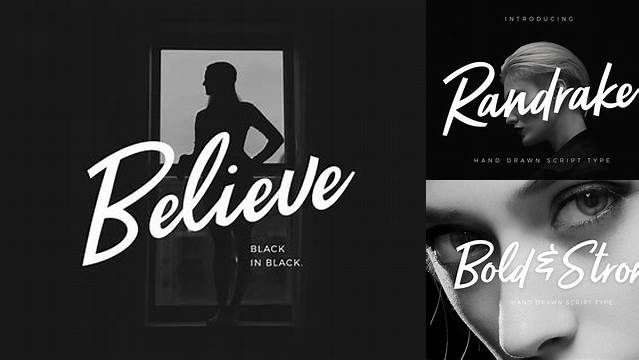
Are you looking for the perfect font to add a touch of elegance and personality to your designs? Look no further! In this comprehensive guide, we'll delve into the world of the Randrake font script, offering you everything you need to know about this beautiful typeface and how you can download it for free. We'll explore its unique characteristics, discuss its best uses, and provide tips on how to incorporate it into your projects seamlessly. So, buckle up, guys, and let's dive into the world of Randrake!
What is the Randrake Font Script?
Let's start by understanding what exactly the Randrake font script is. This font is a beautifully crafted typeface that falls into the script category. Script fonts are designed to mimic the flowing strokes of handwriting, giving them a personal and elegant touch. Randrake is no exception; it boasts graceful curves, delicate lines, and a distinct personality that makes it stand out from the crowd. Its flowing letterforms and unique flourishes give it a handmade feel, perfect for adding a touch of sophistication to various design projects. The Randrake font script exudes a sense of elegance and charm, making it ideal for projects that require a touch of personality and sophistication. Its versatility allows it to be used in a wide range of applications, from branding to invitations, ensuring that your message is conveyed with style and grace. The unique characteristics of the Randrake font script make it a valuable asset for any designer looking to add a touch of artistry to their work. When you are deciding about using a particular font like Randrake, you should consider the tone and message you want to convey. Is it for a formal event, a personal project, or a business venture? The flowing script of Randrake lends itself well to projects where elegance and a personal touch are desired. For instance, wedding invitations, greeting cards, and personalized stationery would greatly benefit from the unique characteristics of this font. It can also add a touch of sophistication to logos, websites, and marketing materials. The key is to ensure that the font complements the overall design and message, creating a harmonious and visually appealing result. Moreover, think about legibility. While script fonts are beautiful, they can sometimes be challenging to read if used in large blocks of text or at small sizes. Therefore, it's advisable to use Randrake sparingly, opting for headings, titles, or short phrases where its elegance can shine without compromising readability. Combining it with a simpler sans-serif or serif font for body text can create a balanced and visually pleasing effect. The Randrake font script is more than just a typeface; it's a design element that can transform your projects. Its unique characteristics and versatility make it a valuable asset for designers and creatives alike. By understanding its strengths and limitations, you can effectively incorporate it into your work and elevate your designs to new heights.
Now, let's dive deeper into the specific features and characteristics that make the Randrake font script so special. One of the most notable features is its flowing and elegant letterforms. The strokes are smooth and graceful, creating a sense of movement and sophistication. This makes it perfect for projects that require a touch of class and refinement. The letterforms of Randrake are designed with a high level of detail, ensuring that each character complements the others seamlessly. The curves are carefully crafted, and the connections between letters are smooth and natural, giving the font a harmonious and organic feel. This attention to detail is what sets Randrake apart and makes it a truly special typeface. Another key characteristic of Randrake is its unique flourishes. These decorative elements add a touch of personality and flair to the font, making it stand out from other script typefaces. The flourishes are subtle yet effective, enhancing the overall elegance of the font without being overly distracting. They add a touch of whimsy and charm, making Randrake perfect for projects that require a personal and creative touch. Furthermore, the Randrake font script often includes a variety of alternate characters and ligatures. Alternate characters provide different stylistic options for certain letters, allowing you to customize the font to your specific needs. Ligatures, on the other hand, are special characters that combine two or more letters into a single glyph, creating a more fluid and natural connection. These features add versatility to the font, allowing you to create unique and customized designs. The weight and thickness of the strokes in Randrake also contribute to its overall aesthetic. The font typically features a balanced stroke weight, making it legible and visually appealing. The strokes are neither too thin nor too thick, ensuring that the font is easy to read while still maintaining its elegant appearance. This balance makes Randrake suitable for a variety of applications, from digital designs to print materials. Finally, the overall spacing and kerning of the Randrake font script are carefully considered to ensure optimal readability and visual appeal. Kerning refers to the spacing between individual letters, and proper kerning is essential for creating a balanced and harmonious typeface. Randrake's kerning is meticulously adjusted to ensure that the letters flow together seamlessly, creating a visually pleasing and easy-to-read text. In conclusion, the key features and characteristics of the Randrake font script, including its flowing letterforms, unique flourishes, alternate characters, ligatures, balanced stroke weight, and careful kerning, make it a truly special and versatile typeface. Understanding these features will help you effectively incorporate Randrake into your designs and create stunning visuals.
Best Uses for the Randrake Font Script
So, where can you best utilize the Randrake font script? Its elegant and flowing style makes it ideal for a variety of projects. Think about wedding invitations, greeting cards, and other stationery items. The script adds a touch of romance and sophistication, making it perfect for special occasions. Randrake's graceful letterforms and delicate flourishes can transform a simple invitation into a work of art, setting the tone for a memorable event. The font's elegant appearance makes it a natural fit for any design that requires a touch of sophistication and charm. Beyond stationery, Randrake is also an excellent choice for branding projects. Its unique personality can help your brand stand out from the crowd. Imagine using it for your logo, website, or marketing materials. The font's distinctive style can create a memorable impression, helping to build brand recognition and loyalty. The Randrake font script can convey a sense of luxury and exclusivity, making it particularly suitable for brands in the fashion, beauty, or lifestyle industries. In the world of web design, Randrake can be used to add a touch of elegance to headers, titles, and short blocks of text. However, it's important to use it sparingly, as script fonts can be challenging to read in large blocks of text. Combining Randrake with a simpler sans-serif or serif font for body text can create a balanced and visually appealing design. The font's flowing lines and unique flourishes can add a touch of personality to your website, making it more engaging and memorable for visitors. Furthermore, Randrake can be a great choice for creating personalized gifts and crafts. Think about using it for monograms, quotes, or custom messages on mugs, t-shirts, or other items. The font's elegant style can add a special touch to these items, making them perfect for birthdays, anniversaries, or other occasions. The Randrake font script allows you to express your creativity and personalize your gifts in a unique and meaningful way. In the realm of publishing, Randrake can be used for book covers, titles, and chapter headings. Its elegant appearance can attract readers and create a sense of sophistication. The font can also be used for quotes or excerpts within the book, adding a touch of visual interest to the text. However, as with web design, it's important to use Randrake judiciously, ensuring that the overall design remains legible and visually appealing. In conclusion, the Randrake font script is a versatile typeface that can be used in a wide range of projects. Its elegant style and unique personality make it a perfect choice for wedding invitations, branding materials, web design, personalized gifts, and publishing projects. By understanding its strengths and limitations, you can effectively incorporate Randrake into your designs and create stunning visuals that capture attention and convey your message with style.
Tips for Using Randrake Font Effectively
Now that you've downloaded the Randrake font script, let's talk about how to use it effectively. As we've discussed, Randrake is a beautiful and elegant font, but it's important to use it judiciously to achieve the best results. One of the most important tips is to use Randrake sparingly. Script fonts, in general, can be challenging to read in large blocks of text. Therefore, it's best to use Randrake for headings, titles, logos, and other short pieces of text. This allows its elegance to shine without compromising readability. Imagine a wedding invitation where the names of the couple are written in Randrake, while the details of the event are in a simpler, more legible font. This creates a beautiful contrast and ensures that all the information is easily accessible. When using Randrake, consider pairing it with a simpler font for body text. A clean sans-serif or serif font can complement the script beautifully, creating a balanced and visually appealing design. For example, you might pair Randrake with a font like Open Sans or Montserrat for a modern and elegant look, or with a classic serif font like Times New Roman or Garamond for a more traditional feel. The key is to choose a font that doesn't compete with Randrake but rather enhances its beauty. Think about the overall tone and message you want to convey when using Randrake. This font exudes elegance and sophistication, so it's best suited for projects that align with this aesthetic. For example, it's a great choice for wedding invitations, greeting cards, and branding materials for luxury products or services. However, it might not be the best choice for a project that requires a more playful or casual tone. Pay attention to the size and spacing of the Randrake font script when using it in your designs. Script fonts can sometimes appear smaller than other fonts at the same point size, so you may need to increase the size slightly to achieve the desired visual impact. Additionally, proper kerning (the spacing between letters) is essential for ensuring readability and visual appeal. Adjust the kerning as needed to create a balanced and harmonious text. Experiment with different colors and effects to enhance the Randrake font script. While Randrake looks beautiful in black, it can also be stunning in other colors. Consider using a metallic gold or silver for a touch of luxury, or a soft pastel shade for a more delicate and romantic feel. You can also add effects like drop shadows or gradients to make the font stand out even more. Finally, don't be afraid to experiment with the alternate characters and ligatures that Randrake may offer. These features can add a unique touch to your designs and allow you to customize the font to your specific needs. Play around with different letter combinations and stylistic options to create a truly original and eye-catching design. In conclusion, using the Randrake font script effectively requires careful consideration and attention to detail. By using it sparingly, pairing it with a simpler font, considering the tone and message, adjusting the size and spacing, experimenting with colors and effects, and utilizing alternate characters and ligatures, you can create stunning designs that showcase the beauty and elegance of Randrake.
The Randrake font script is a beautiful and versatile typeface that can add a touch of elegance to a wide range of design projects. Whether you're creating wedding invitations, branding materials, or personalized gifts, Randrake can help you convey your message with style and grace. And the best part? You can download it for free from various reputable sources. Just remember to exercise caution and prioritize safety when downloading fonts from the internet. By understanding the key features and characteristics of Randrake, knowing its best uses, and following our tips for effective use, you can unlock its full potential and create stunning visuals that capture attention and leave a lasting impression. So, go ahead, guys, download Randrake and let your creativity flow! Embrace the elegance and charm of this beautiful font, and watch your designs come to life.